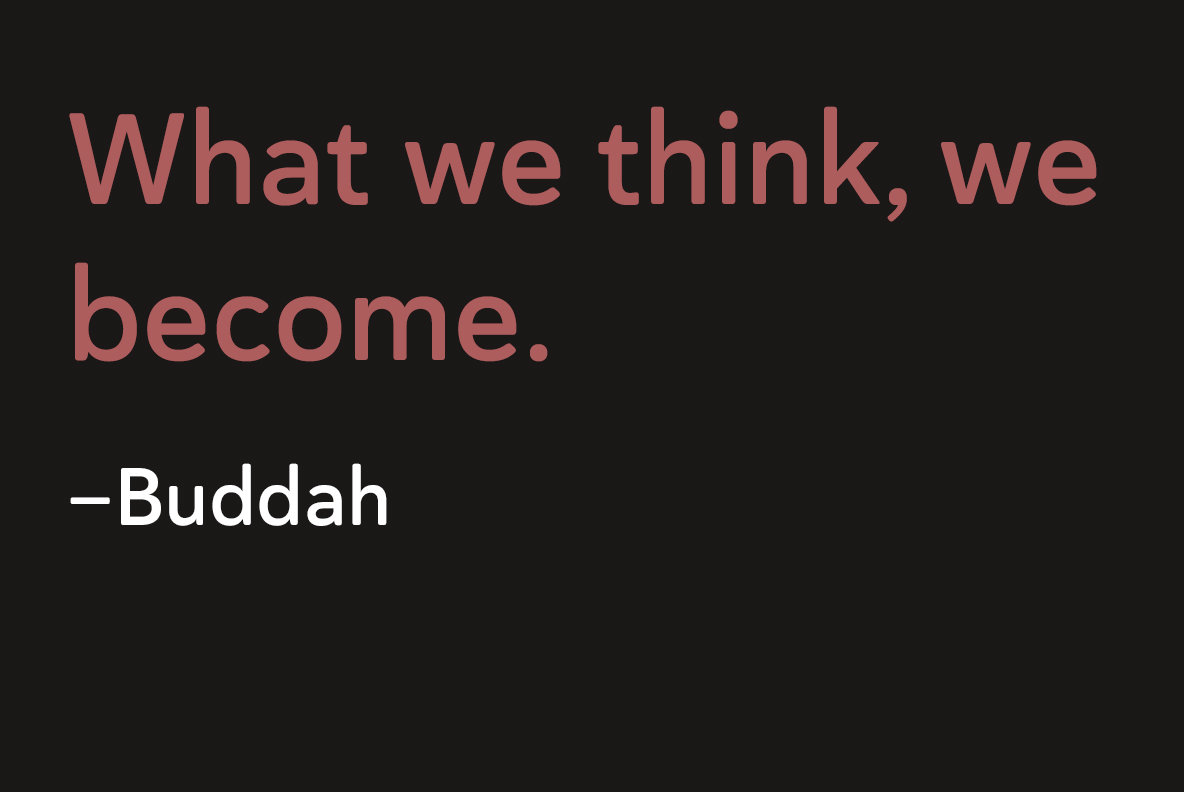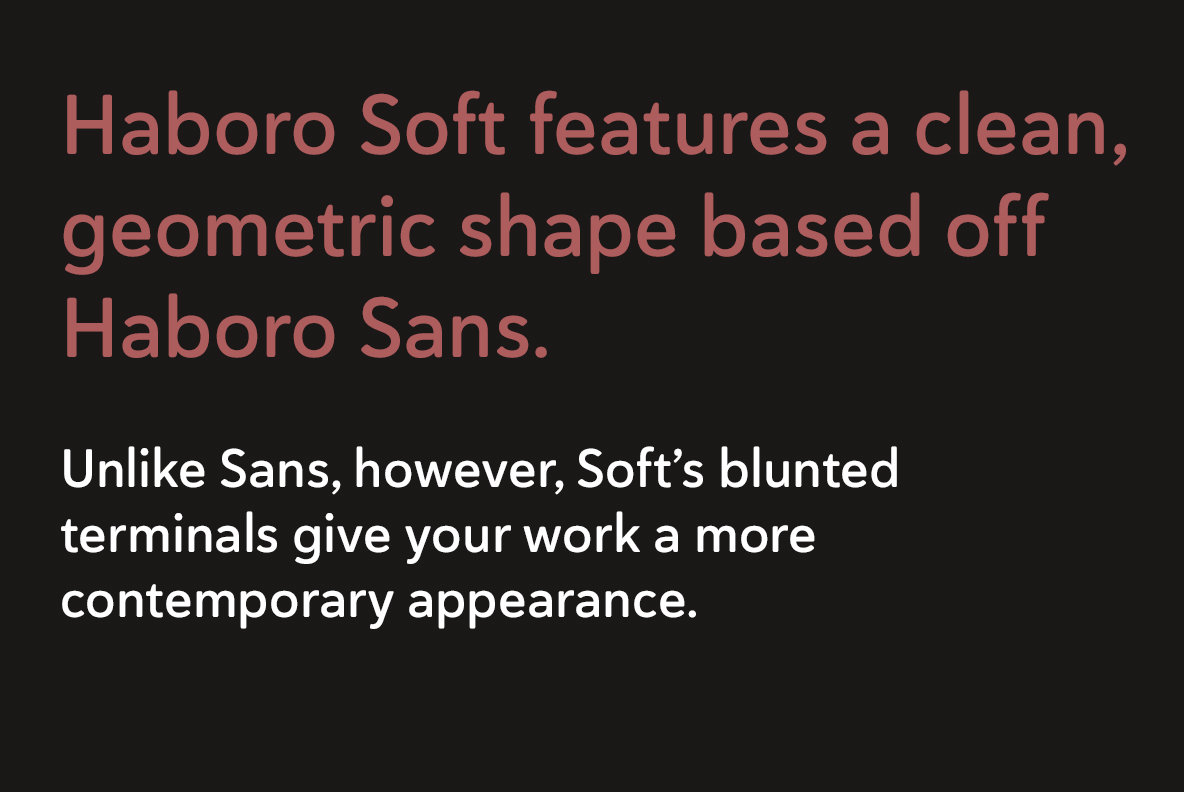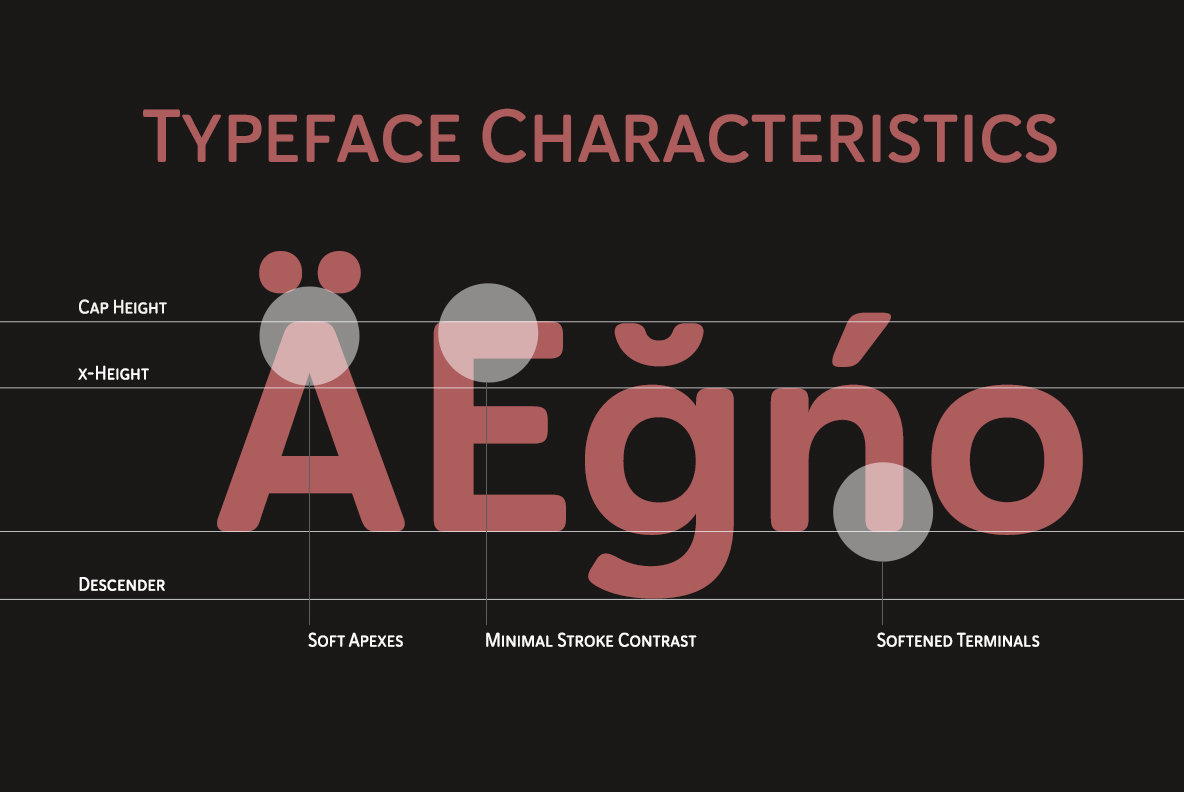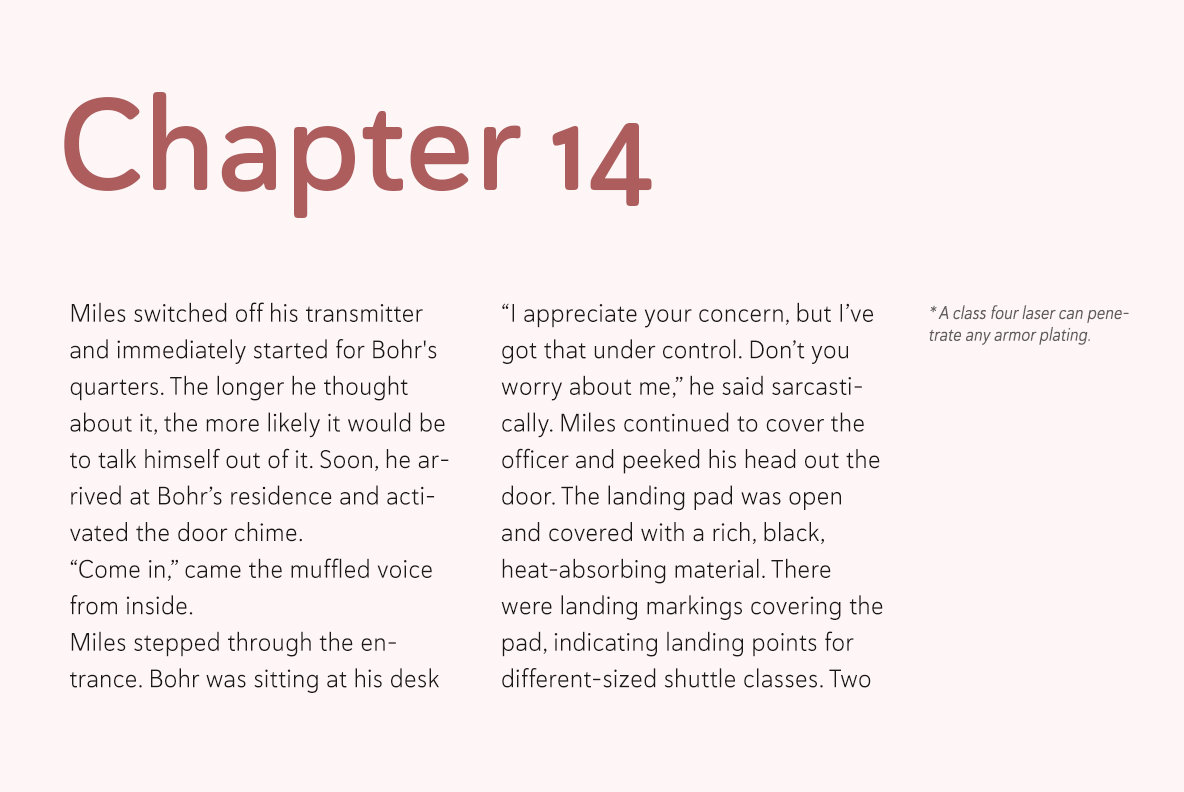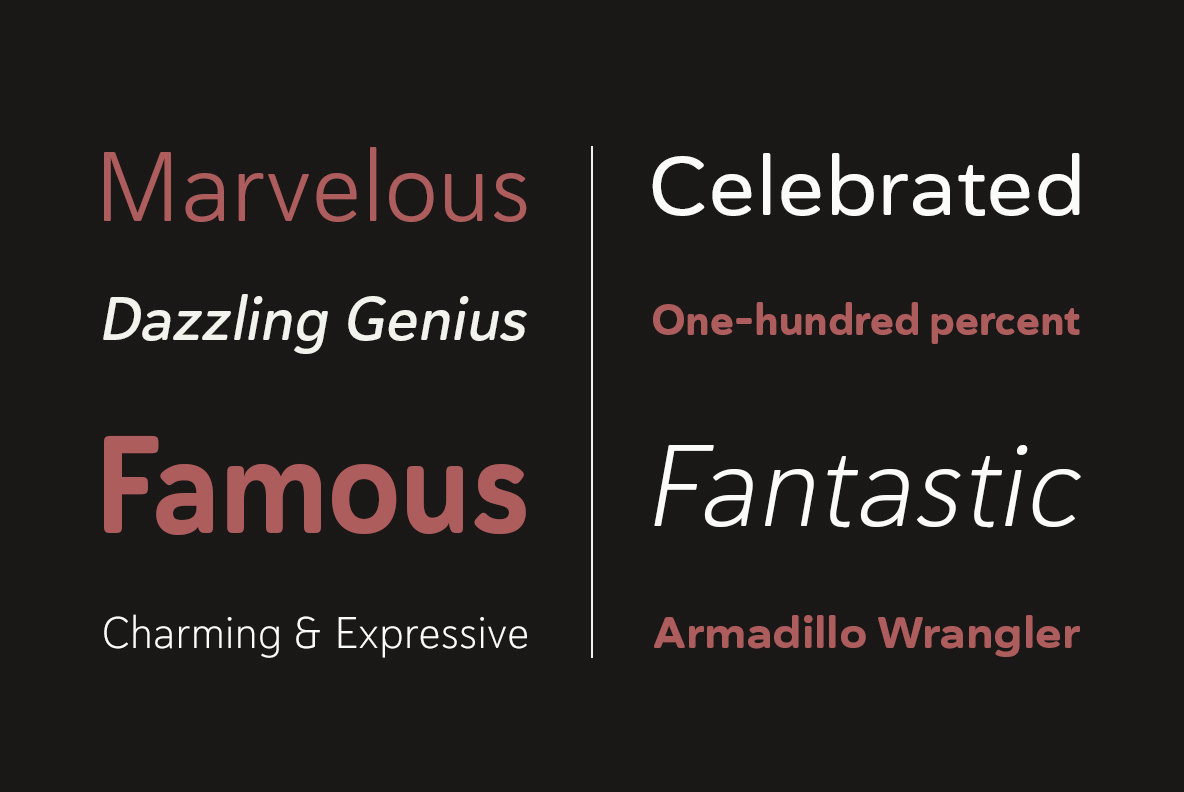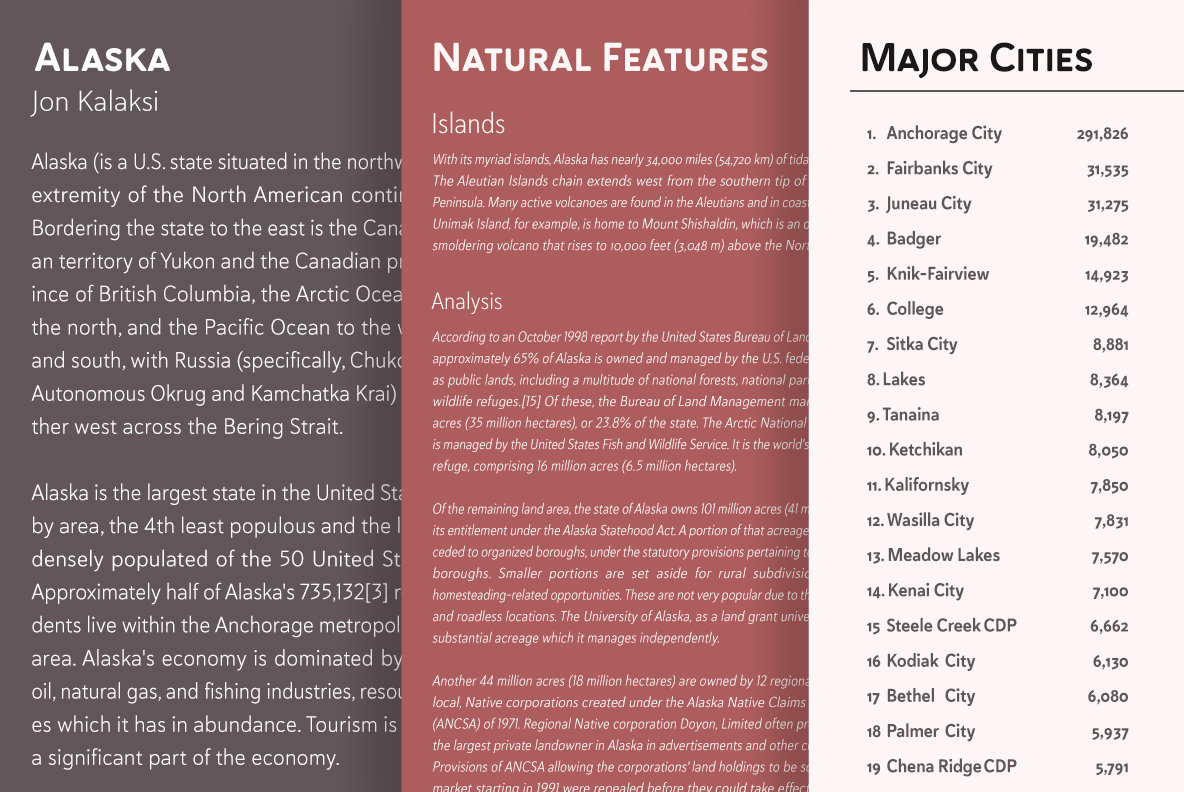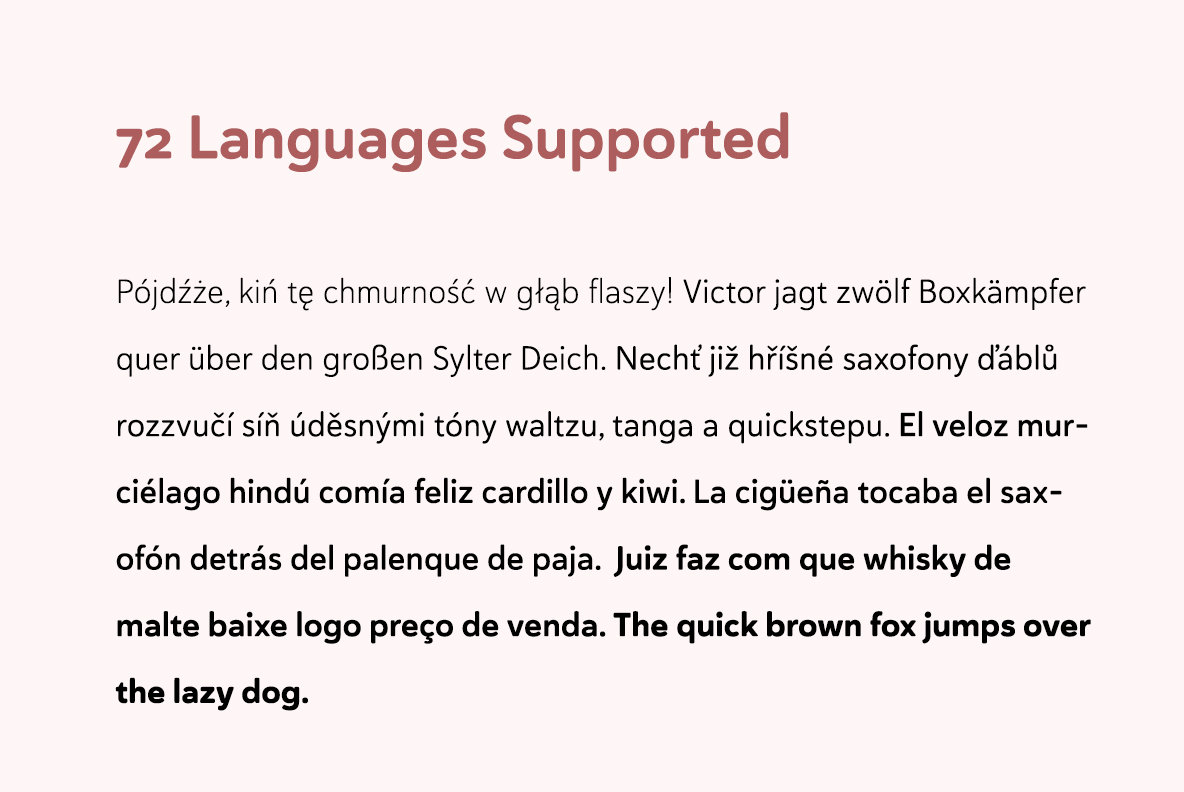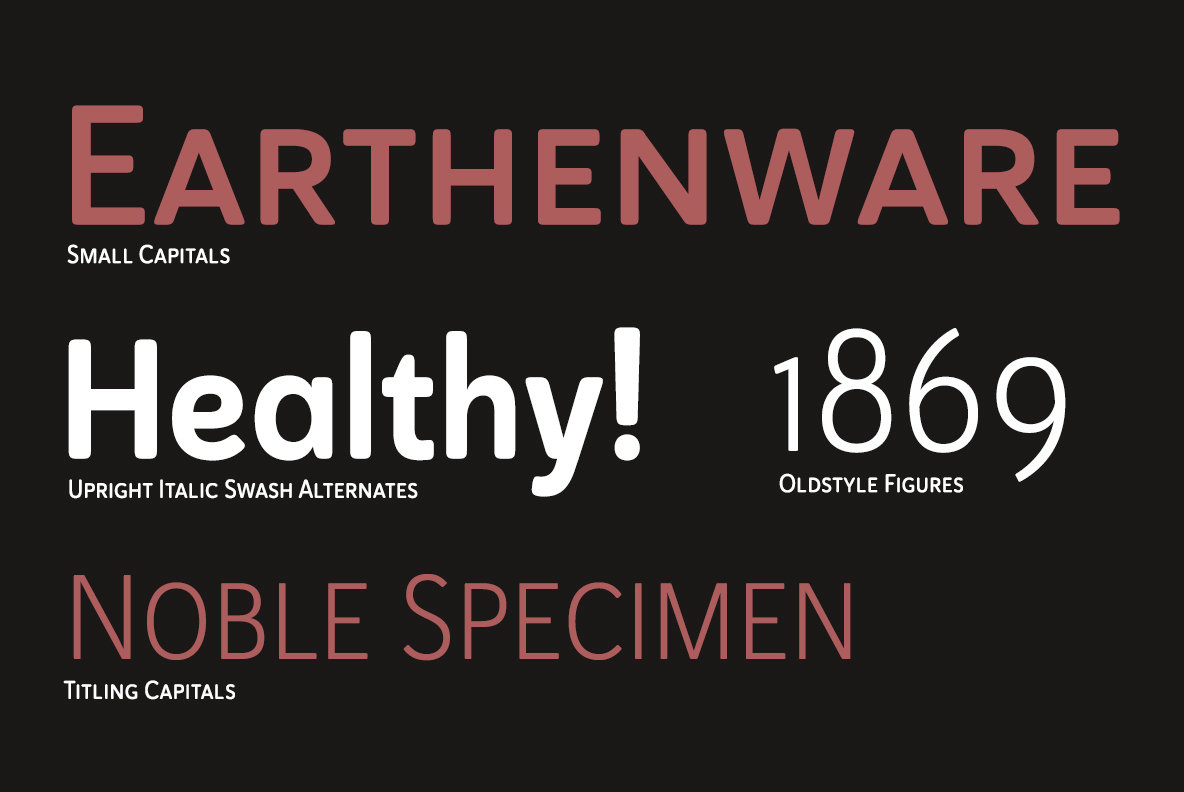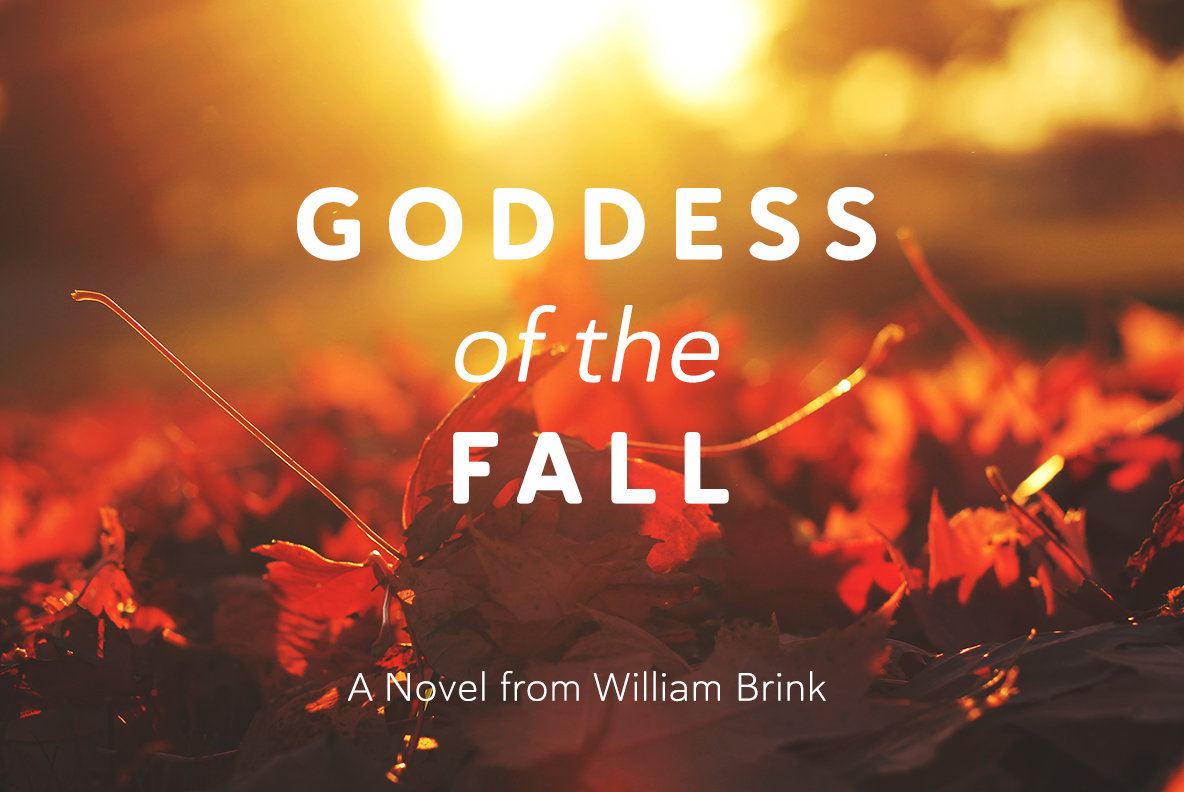
Haboro Soft Font
Stop trekking through the thick, wintery font forest, and step lightly into the fresh life of the Haboro hyper family.
Take Haboro Soft even farther with its OpenType features. The typeface contains specially shaped small caps and old-fashioned figures--just enough to give your work a unique touch. Of course, for more options, use the entire Haboro hyper family to expand your abilities.
Enjoy the comfort in knowing you’re choosing a font family equipped with tools for most anything: packaging, branding, web pages, iPhone apps and more. Its simplicity lends itself to achieve perfect results. And yes, your work will even thank you.